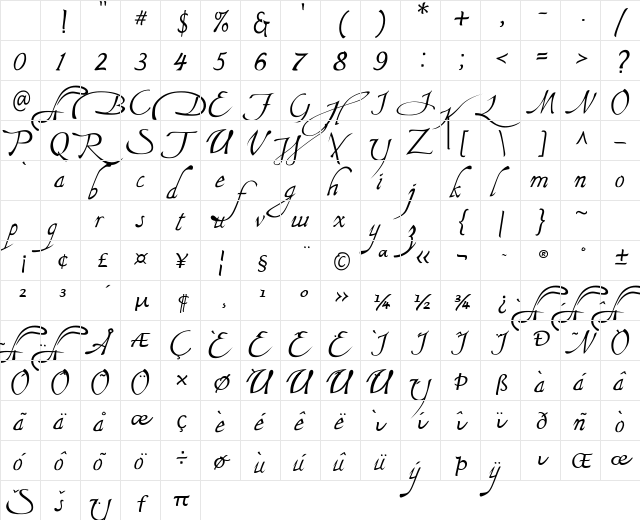
Flamboyant Handwri ting
Design Context for Flamboyant Handwri
Flamboyant Handwri flows with the natural rhythm of handwritten lettering, making it ideal for designs that call for warmth and personal expression.
Font Pairing: Combine Flamboyant Handwri with a simple geometric sans for maximum contrast - the tension between flowing curves and clean structure is a classic typographic pairing.
Pro Tip: Use Flamboyant Handwri for short runs of text - names, titles, or taglines. Extended body copy in script faces tires the eye quickly.